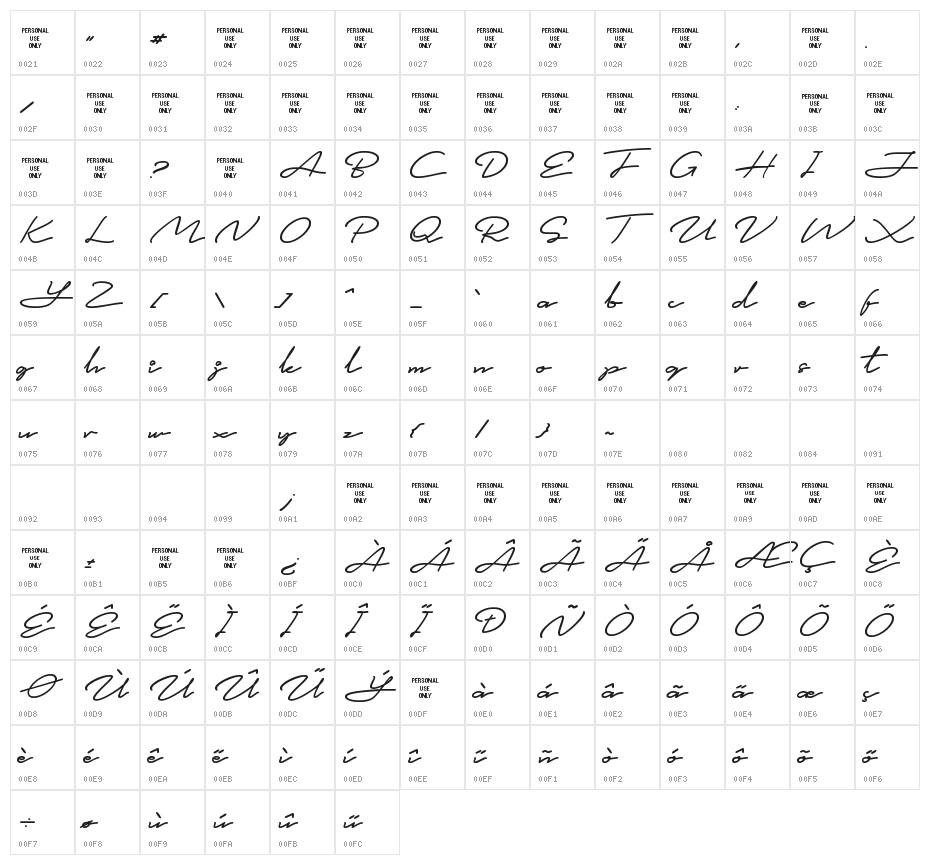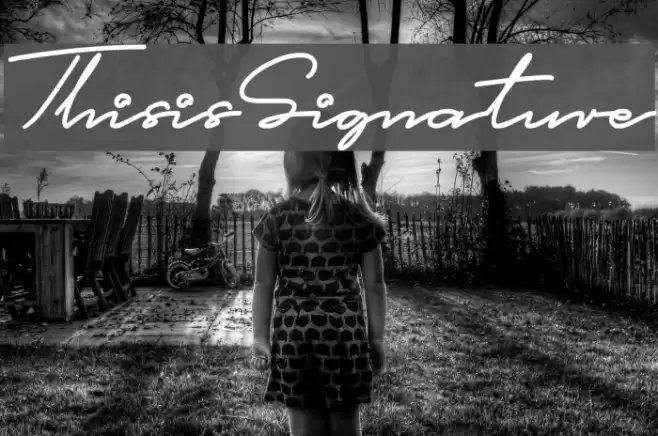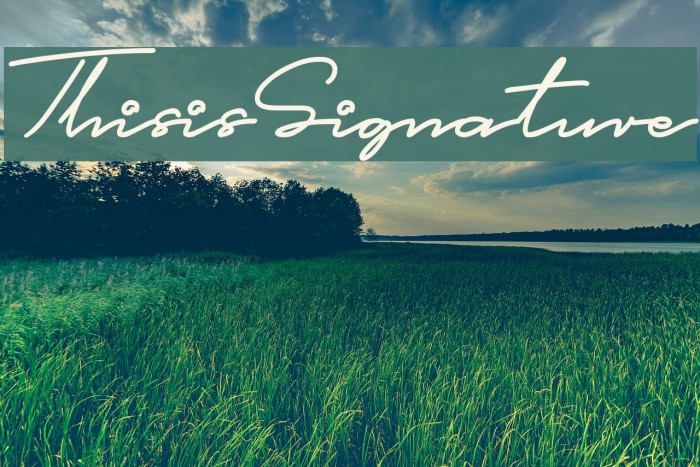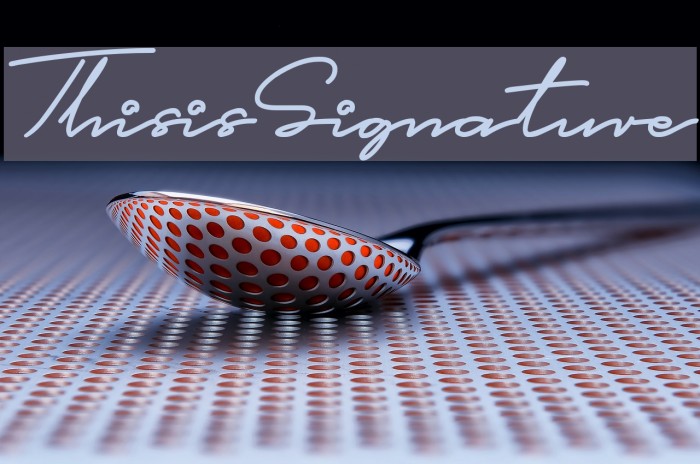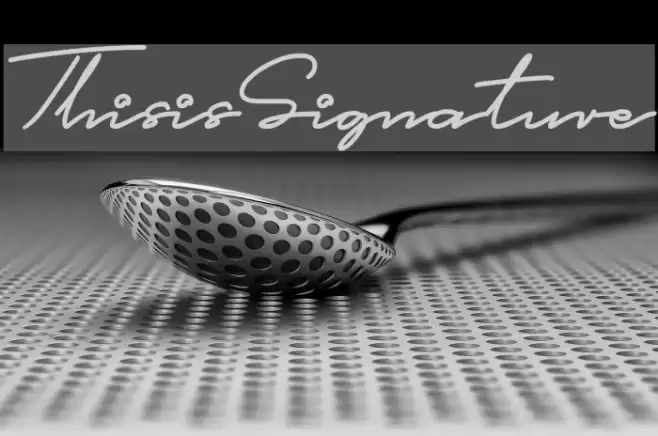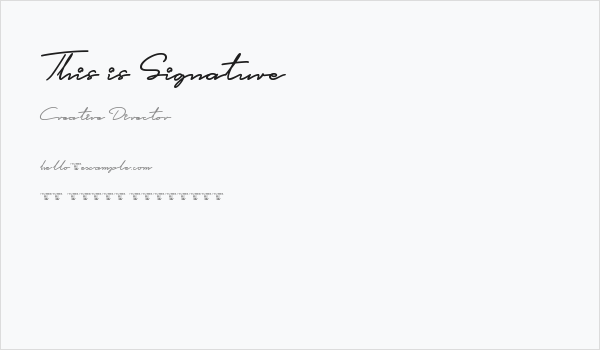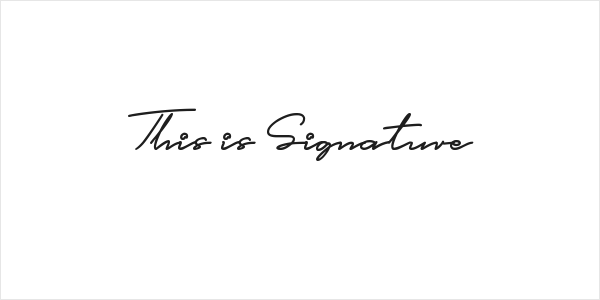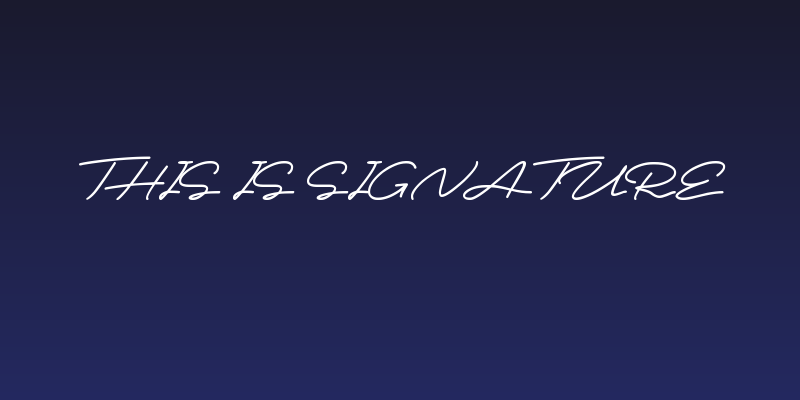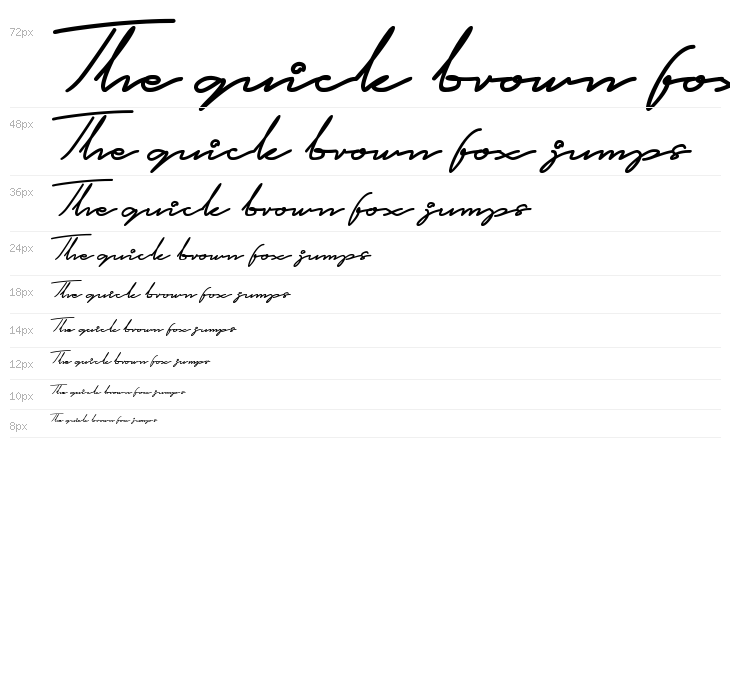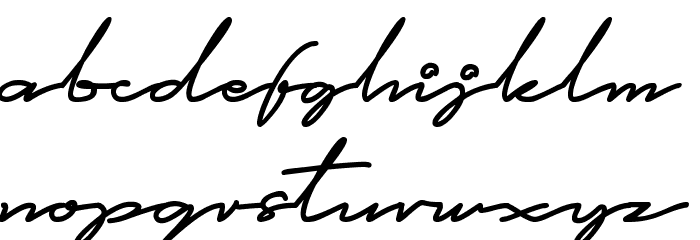
This is Signature Font
This is Signature Description
This font exudes elegance and fluidity, characterized by its cursive, handwritten style. The letters are interconnected, creating a seamless flow that mimics natural handwriting. The uppercase letters maintain a consistent height, while the lowercase letters exhibit graceful loops and curves. The overall appearance is sophisticated and stylish, making it suitable for projects that require a personal touch. The font's design is both classic and modern, appealing to a wide range of aesthetic preferences. Its smooth lines and balanced proportions ensure readability while maintaining an artistic flair.
| Overall Style | Elegant, Modern |
| Proposed Projects | Ideal for wedding invitations, personal branding, greeting cards, and elegant stationery. |